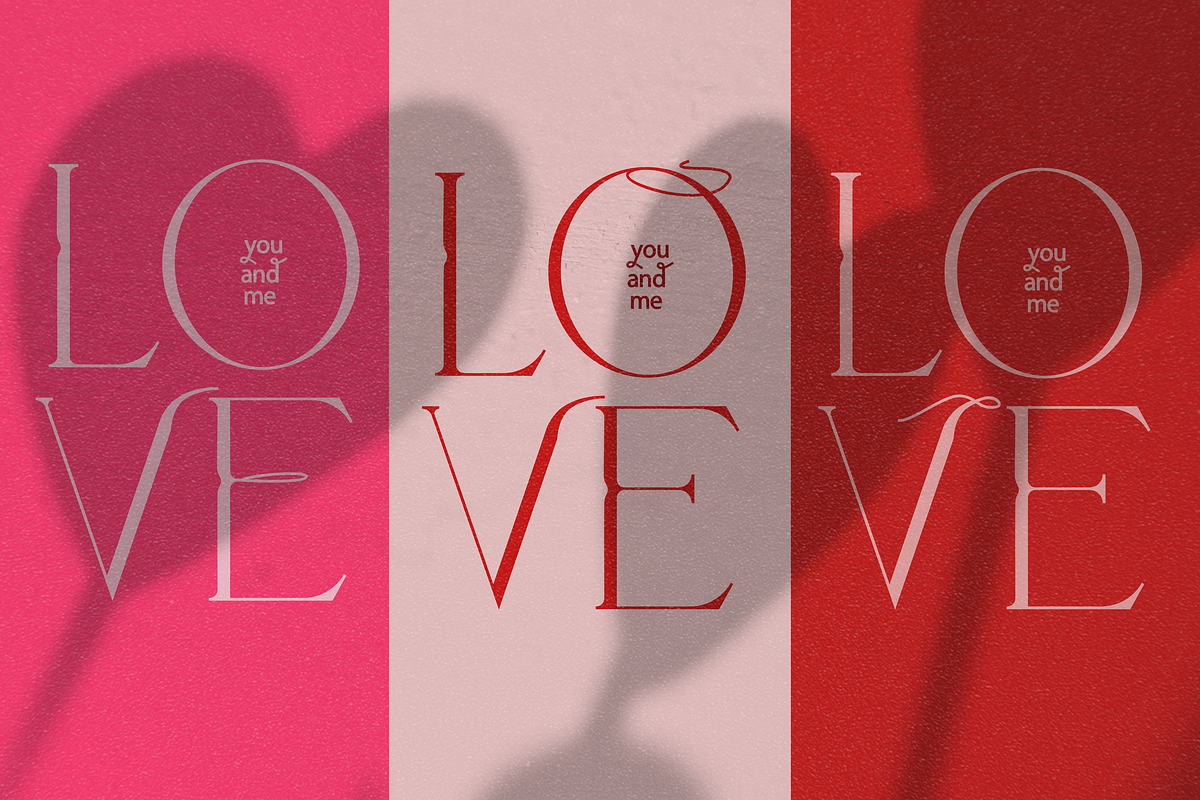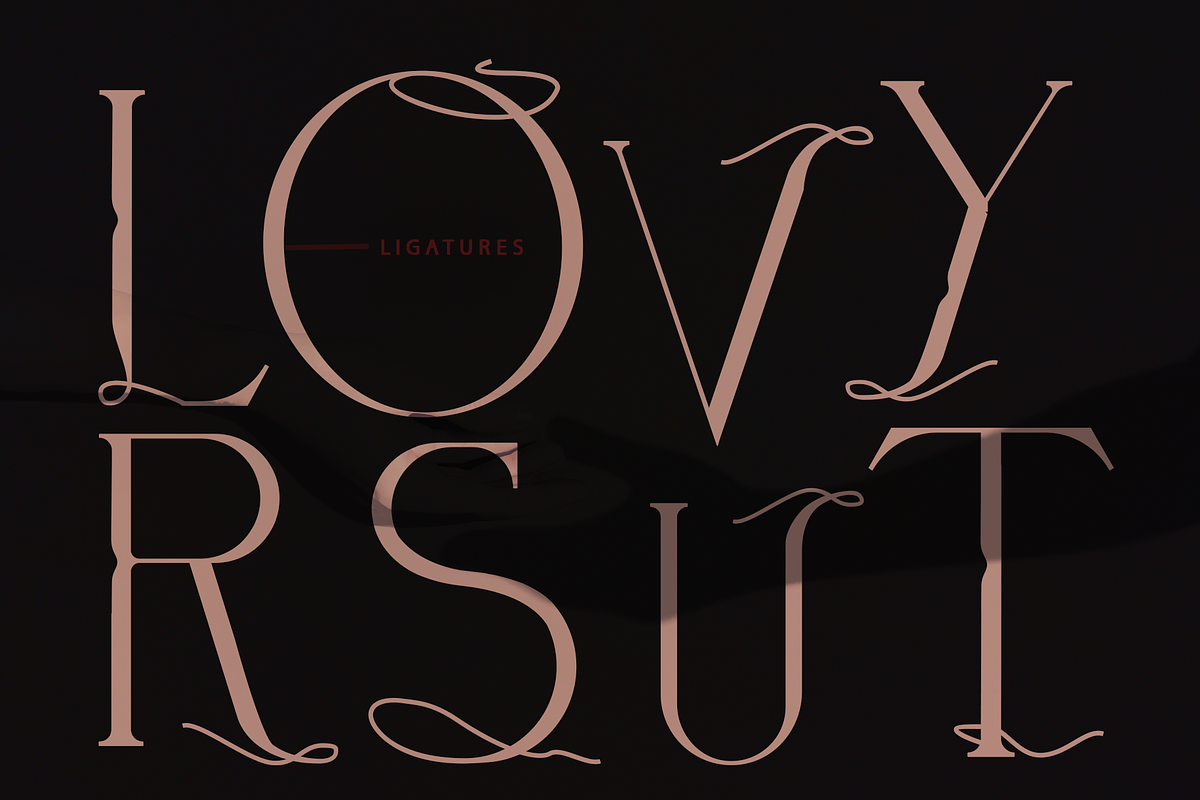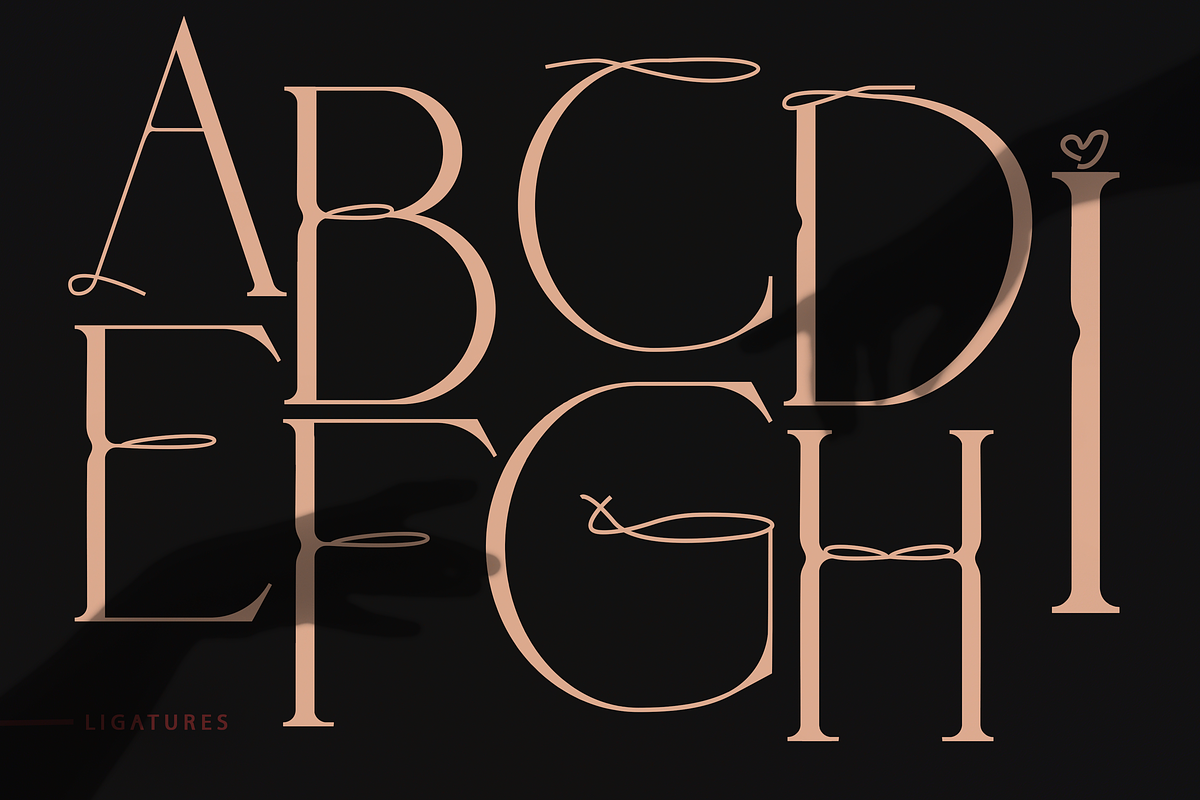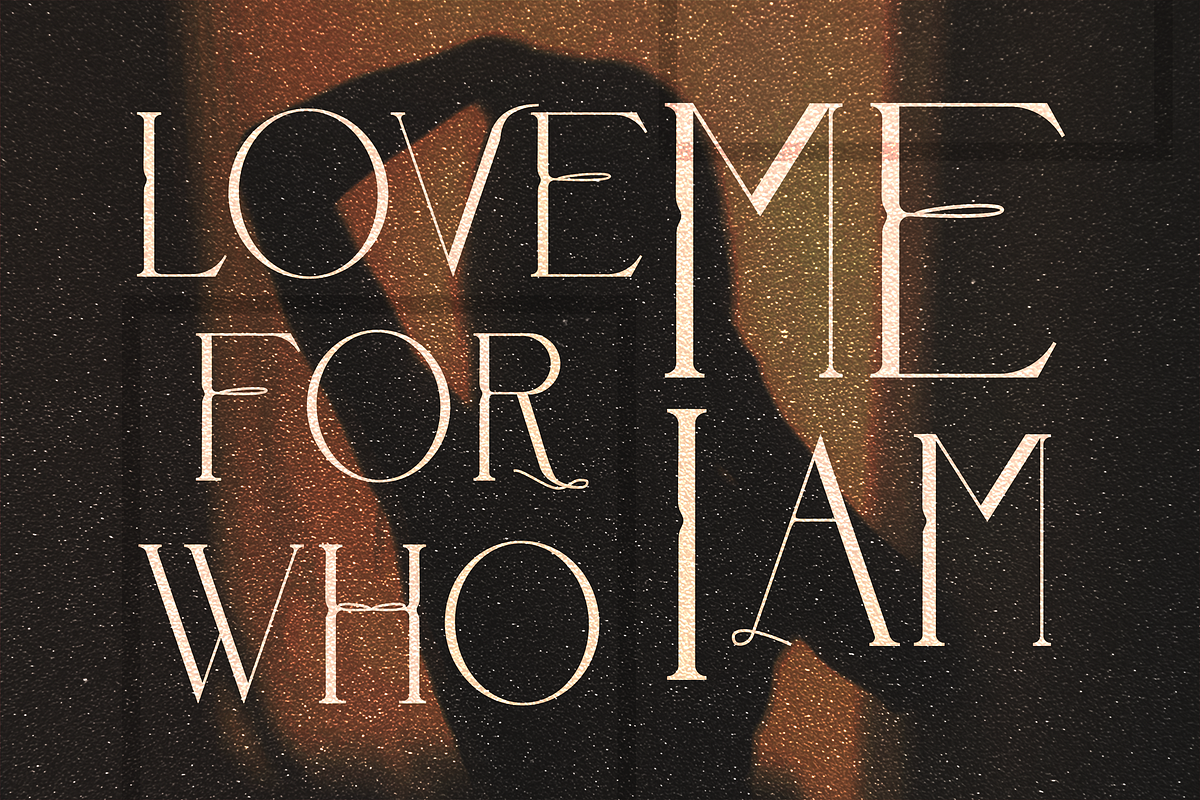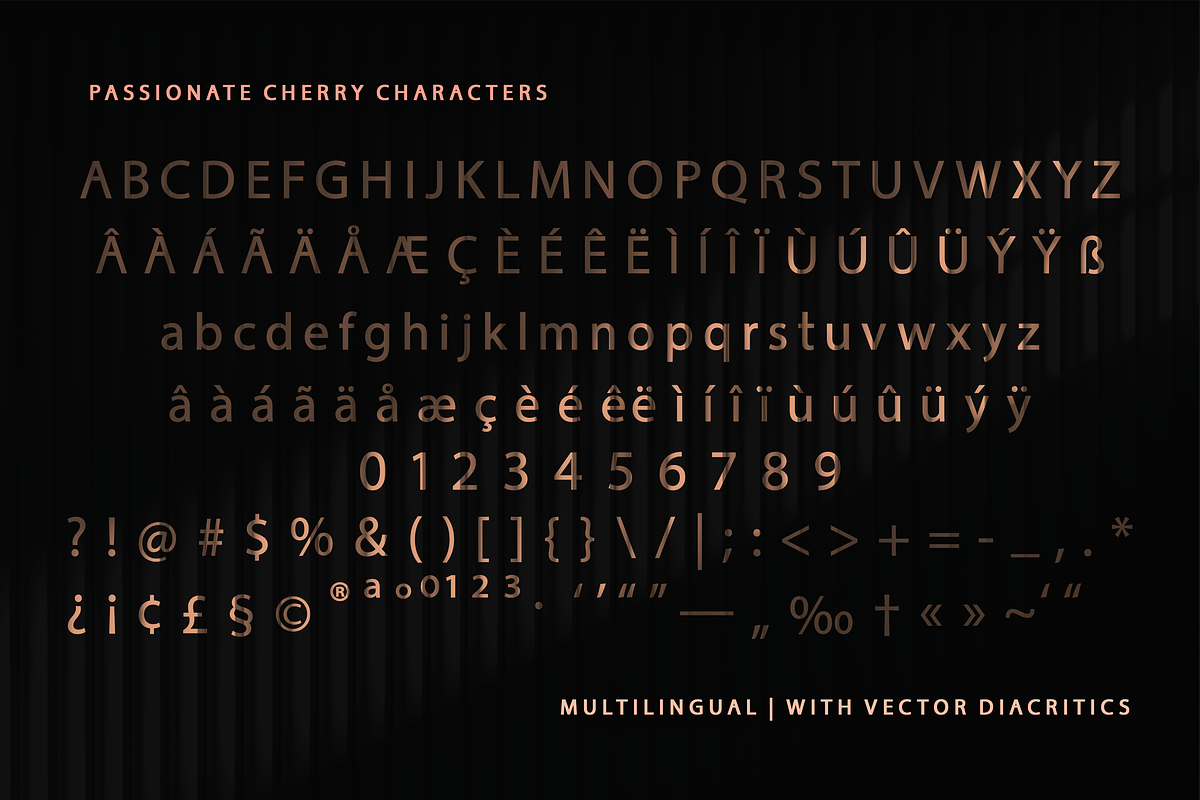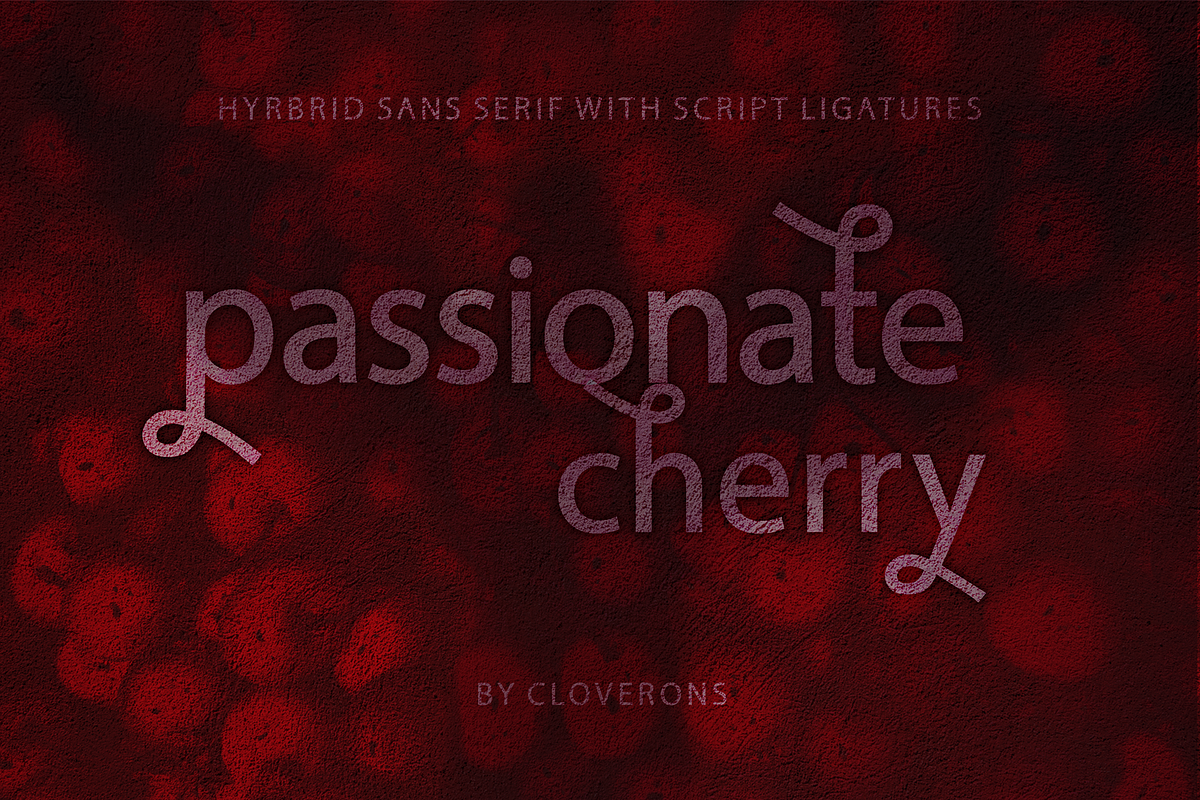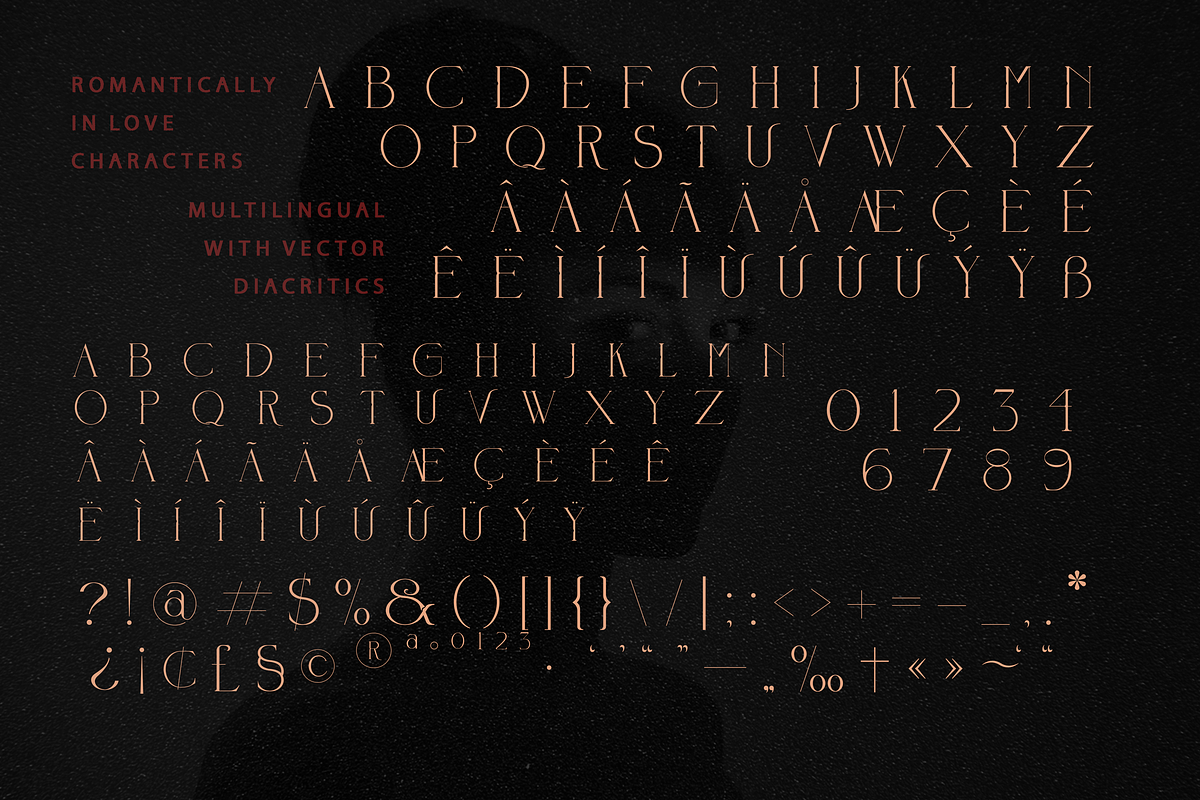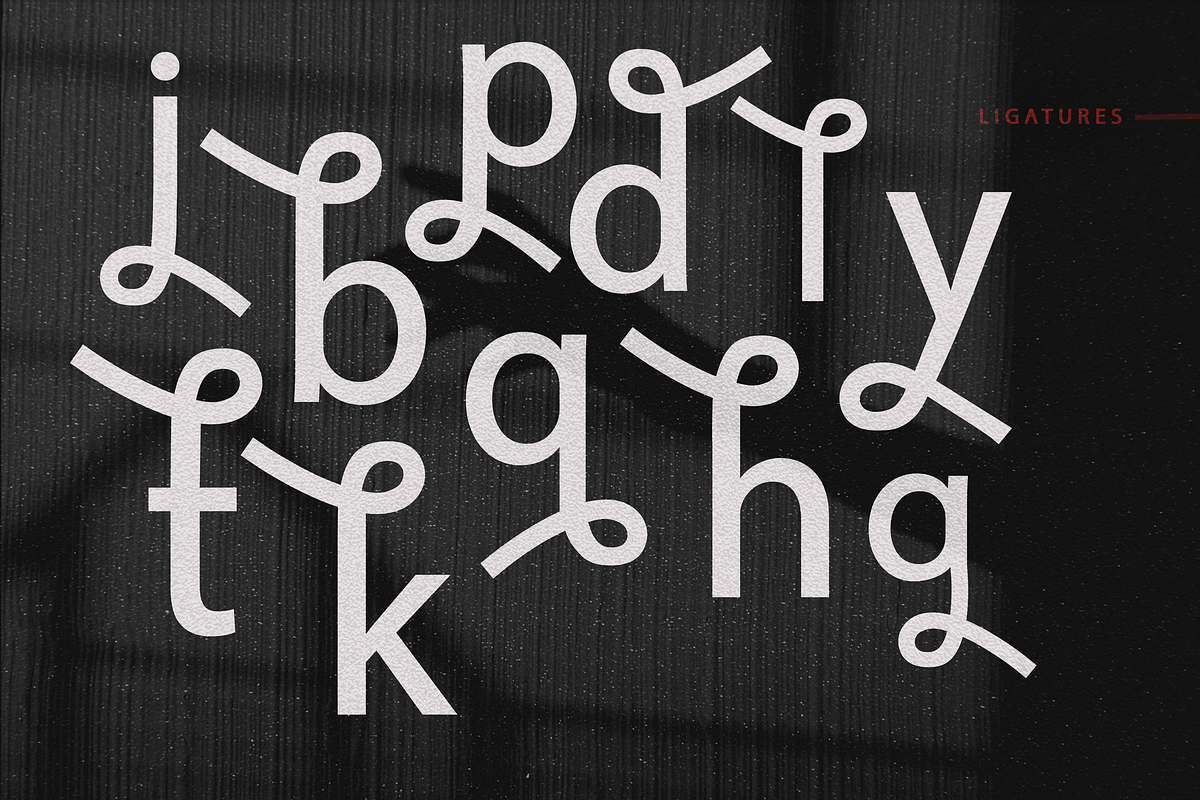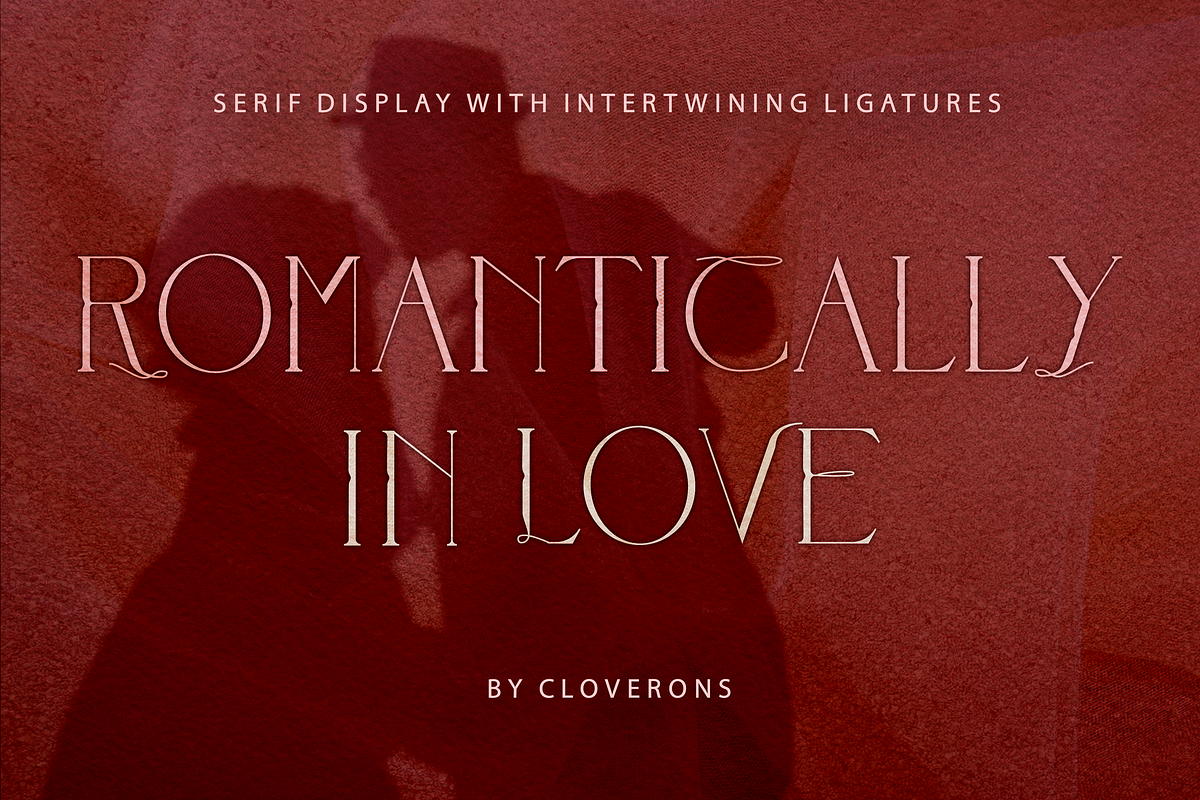
Modern Lovers Font Duo
Meet the Modern Lovers Font Duo, a lovely & romantic font combo. This luxury sans serif & timeless sans serif is a match made in heaven. Get more creative by adding more touch of personality by using eye-catching ligatures that can instantly make your design layouts more loved and stand out.
With a thousand kisses from Passionate Cherry font & loads of devotion from Romantically In Love font, this set of versatile fonts can make a wide range of your design projects spread love for those you care about.
- Two Fonts: Romantically In Love Serif & Passionate Cherry Sans Serif that complement each other
- Complete Characters with Western Europe multilingual support
- Minimalist sophisticated & script-inspired ligatures: turn on ‘Stylistic Alternates’ or access through the Glyphs Panel.